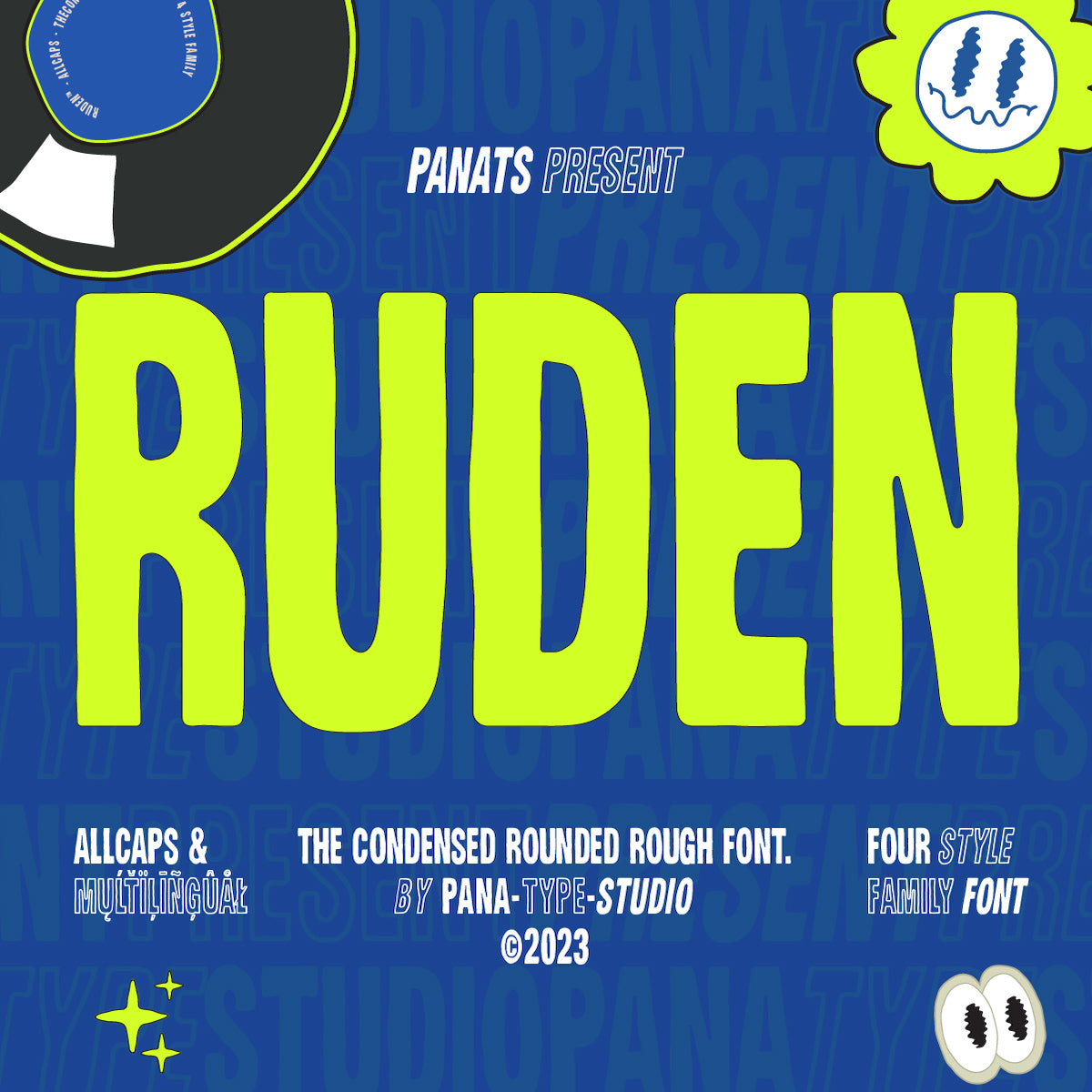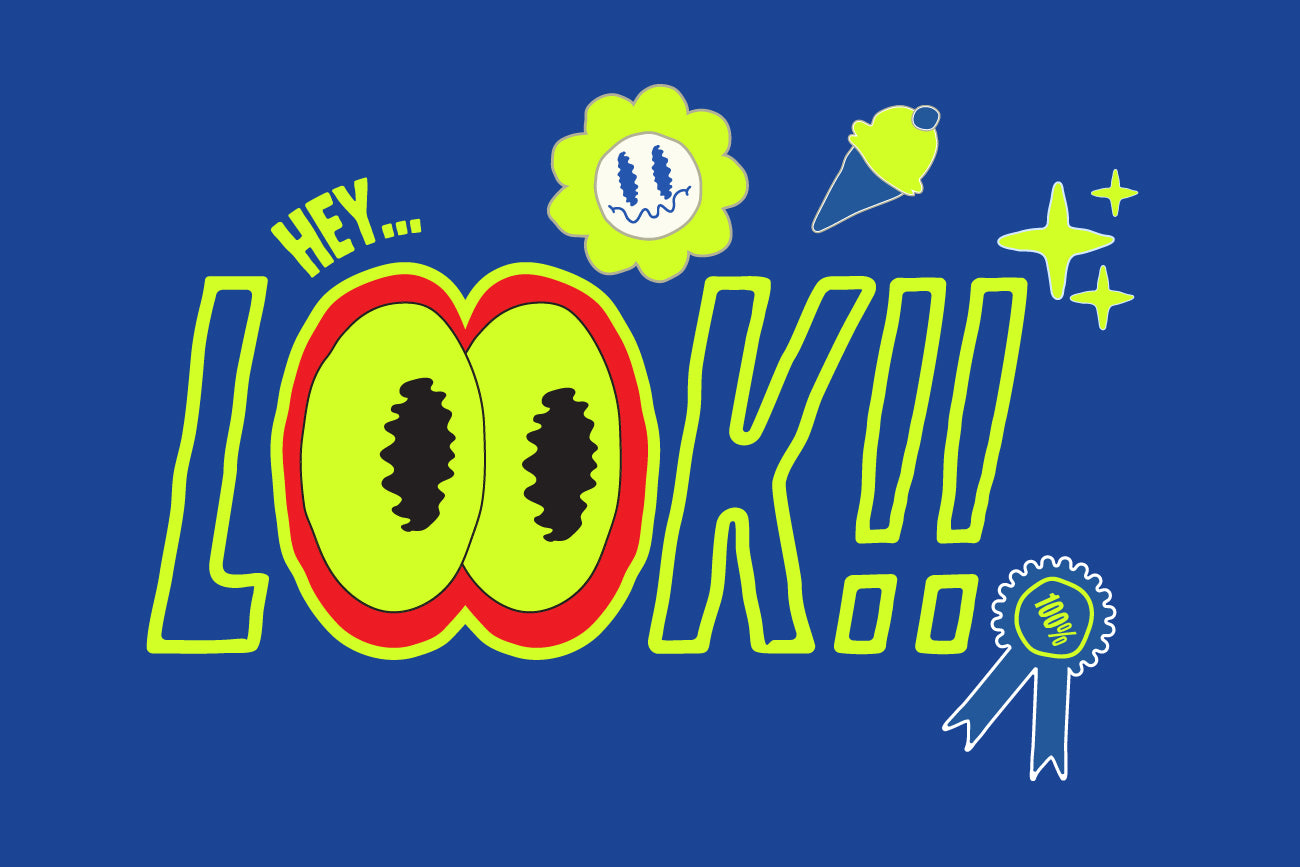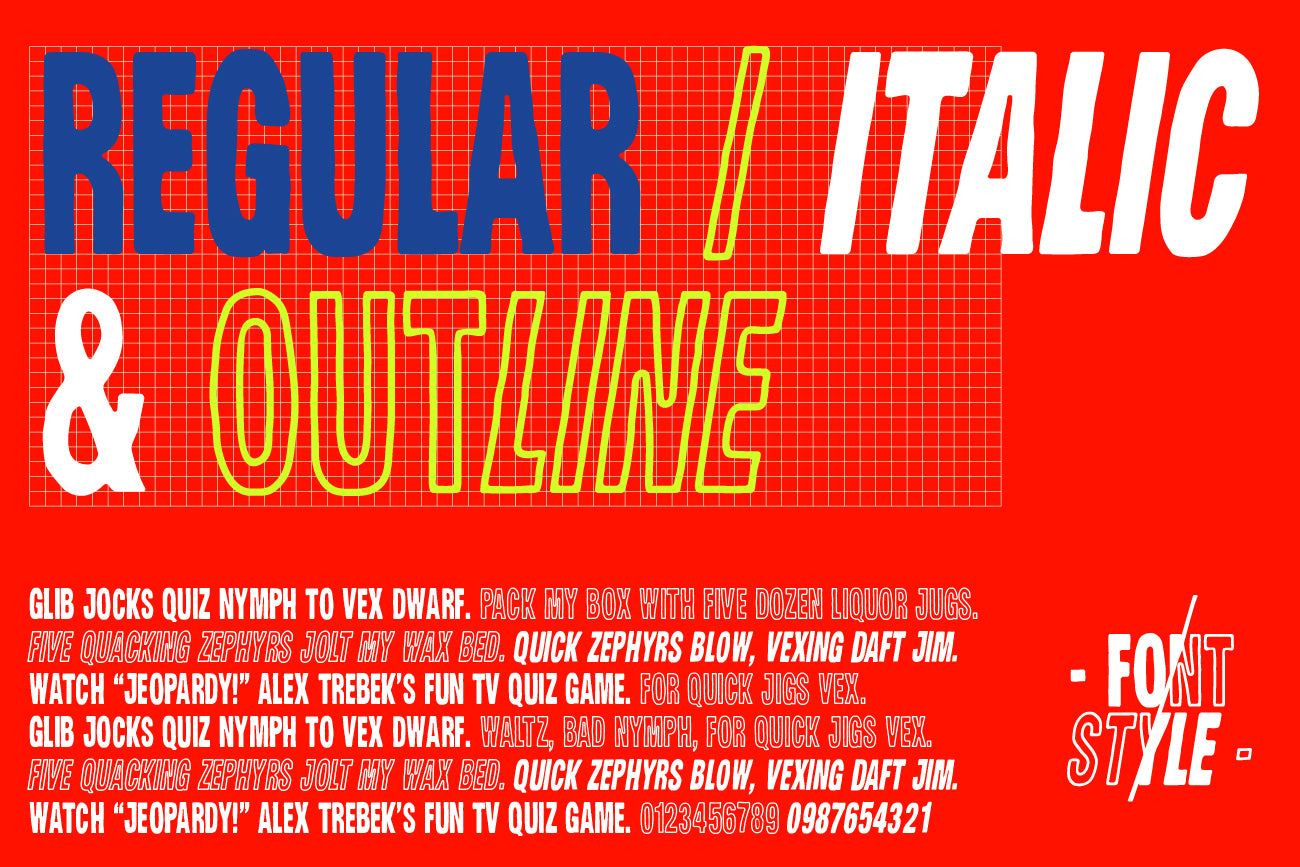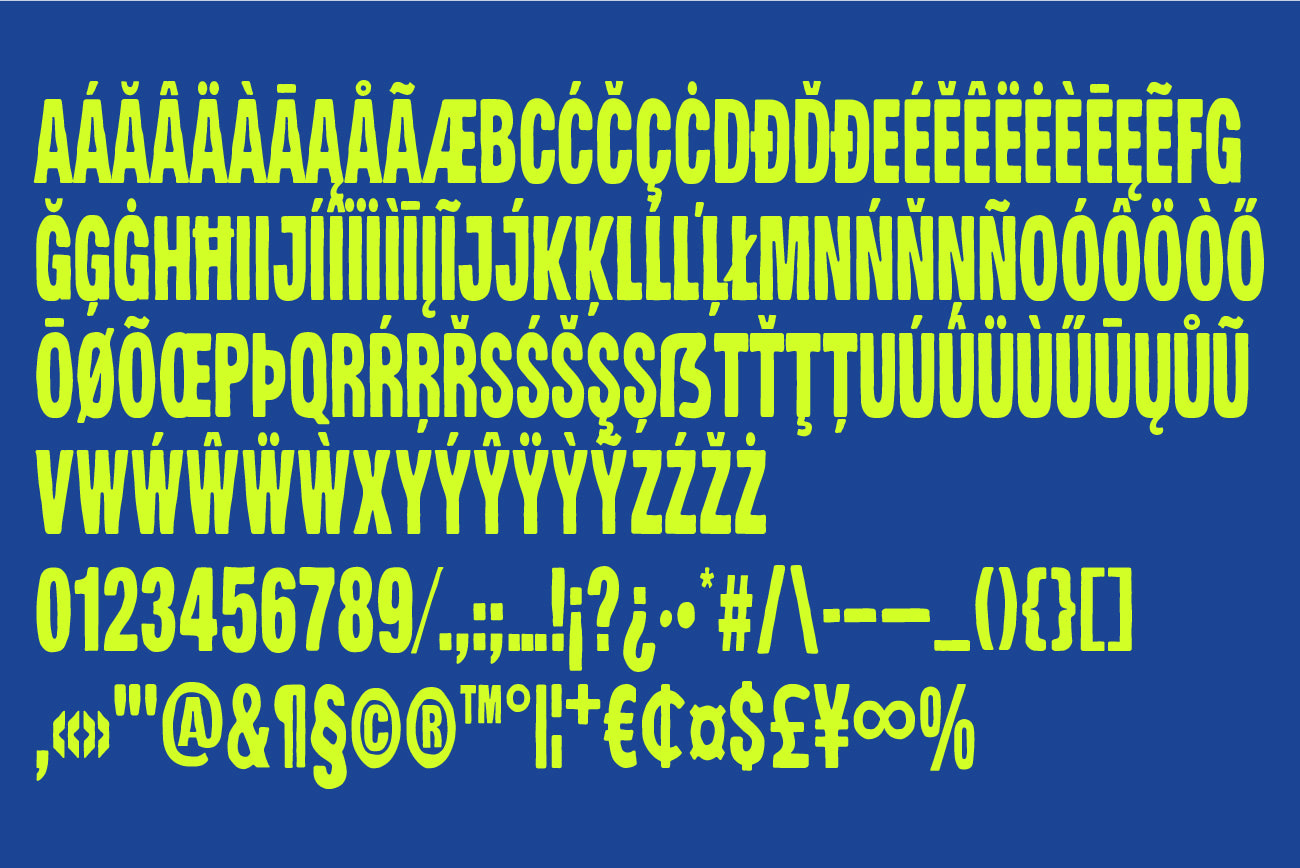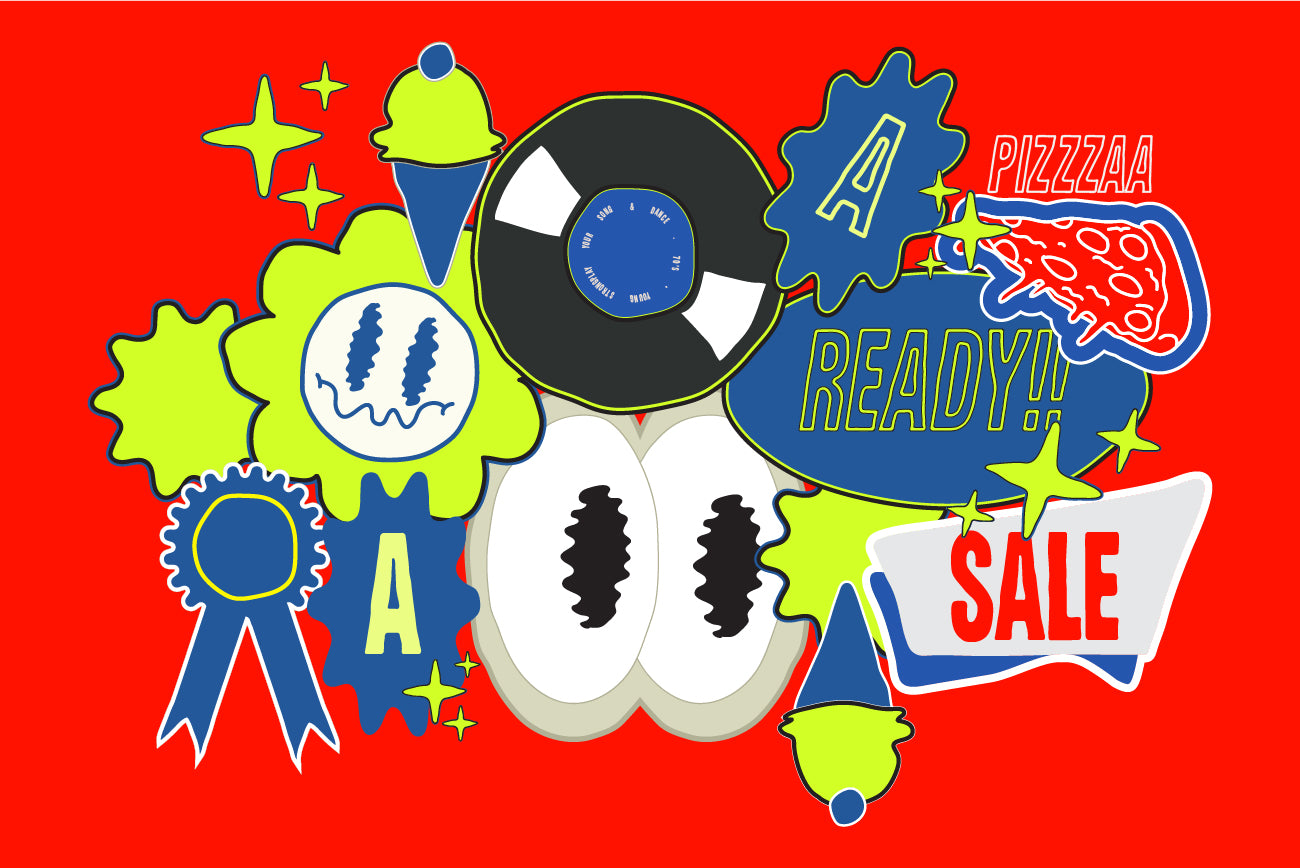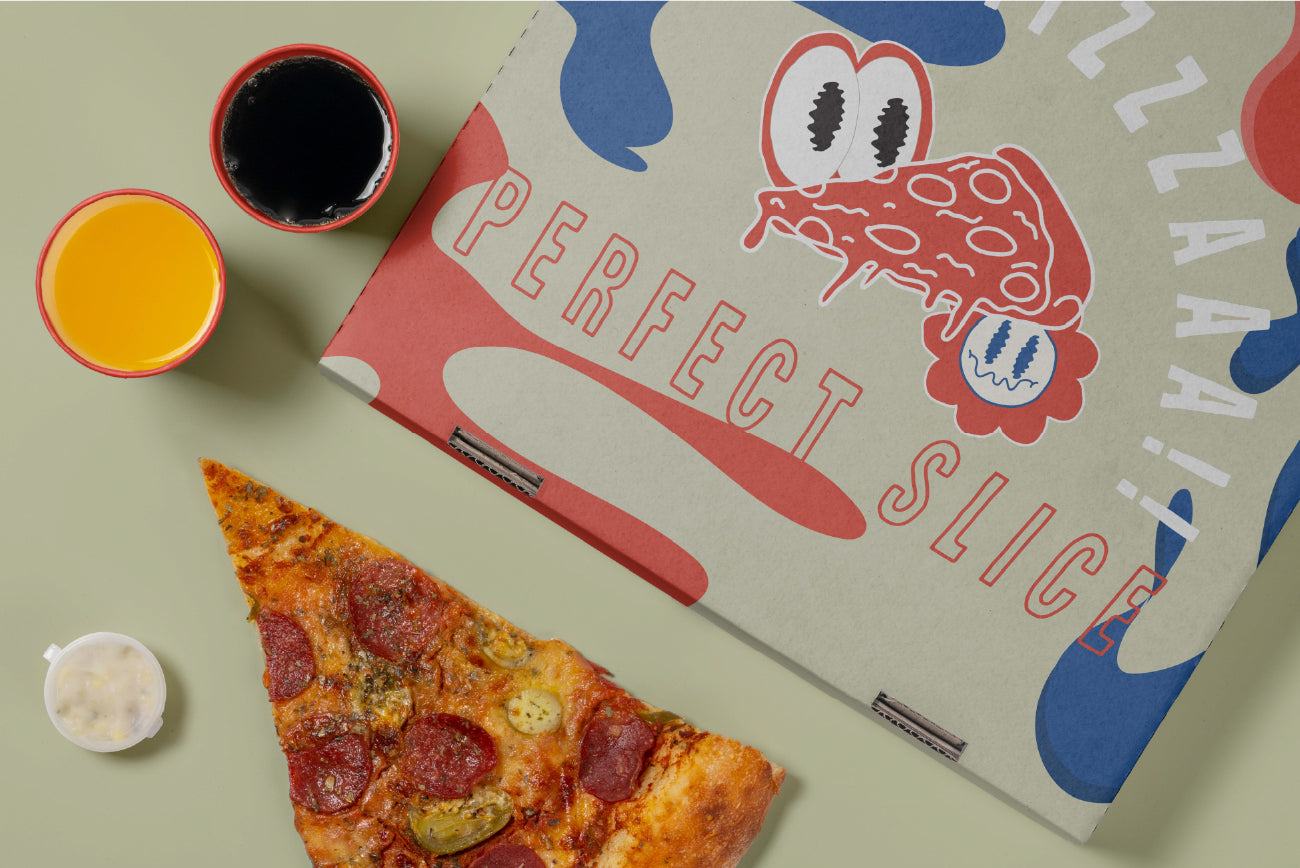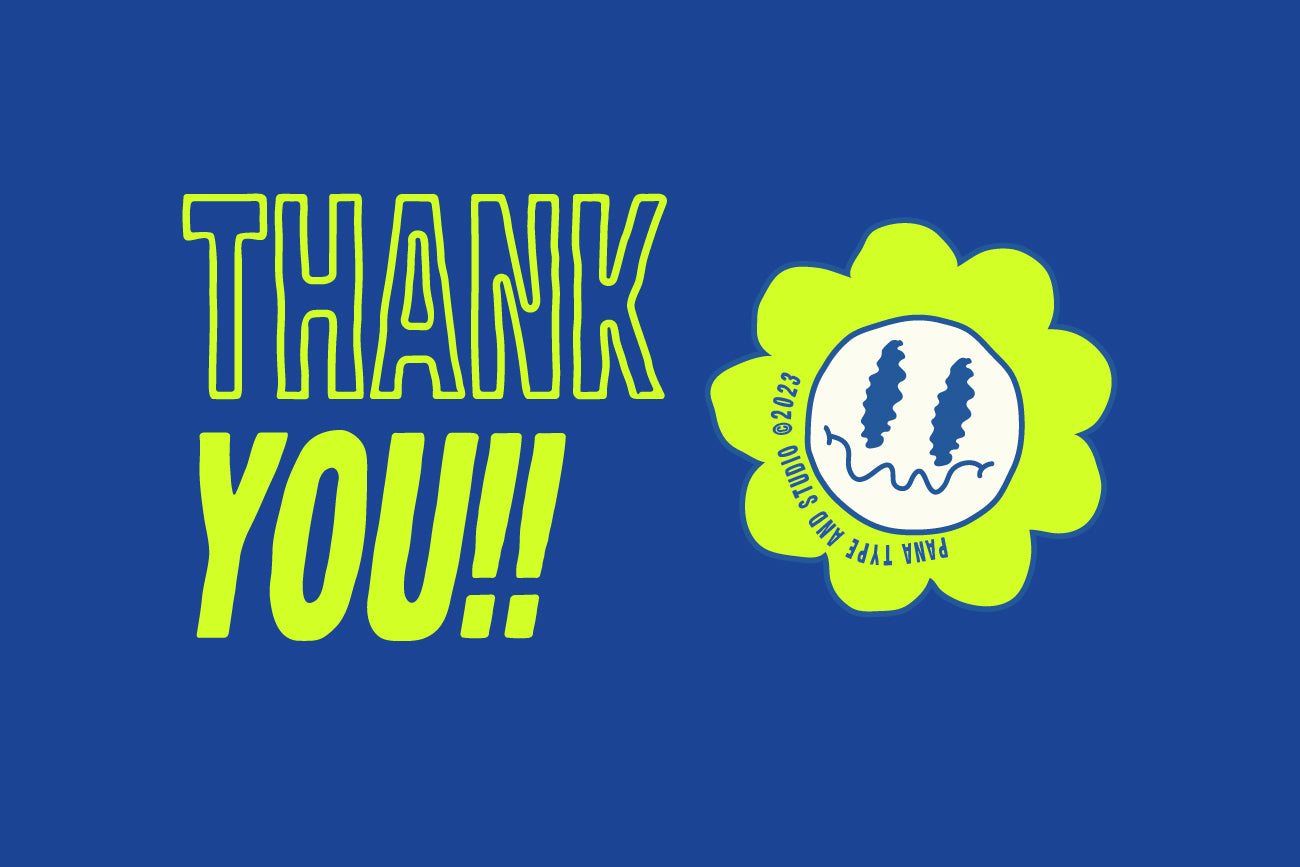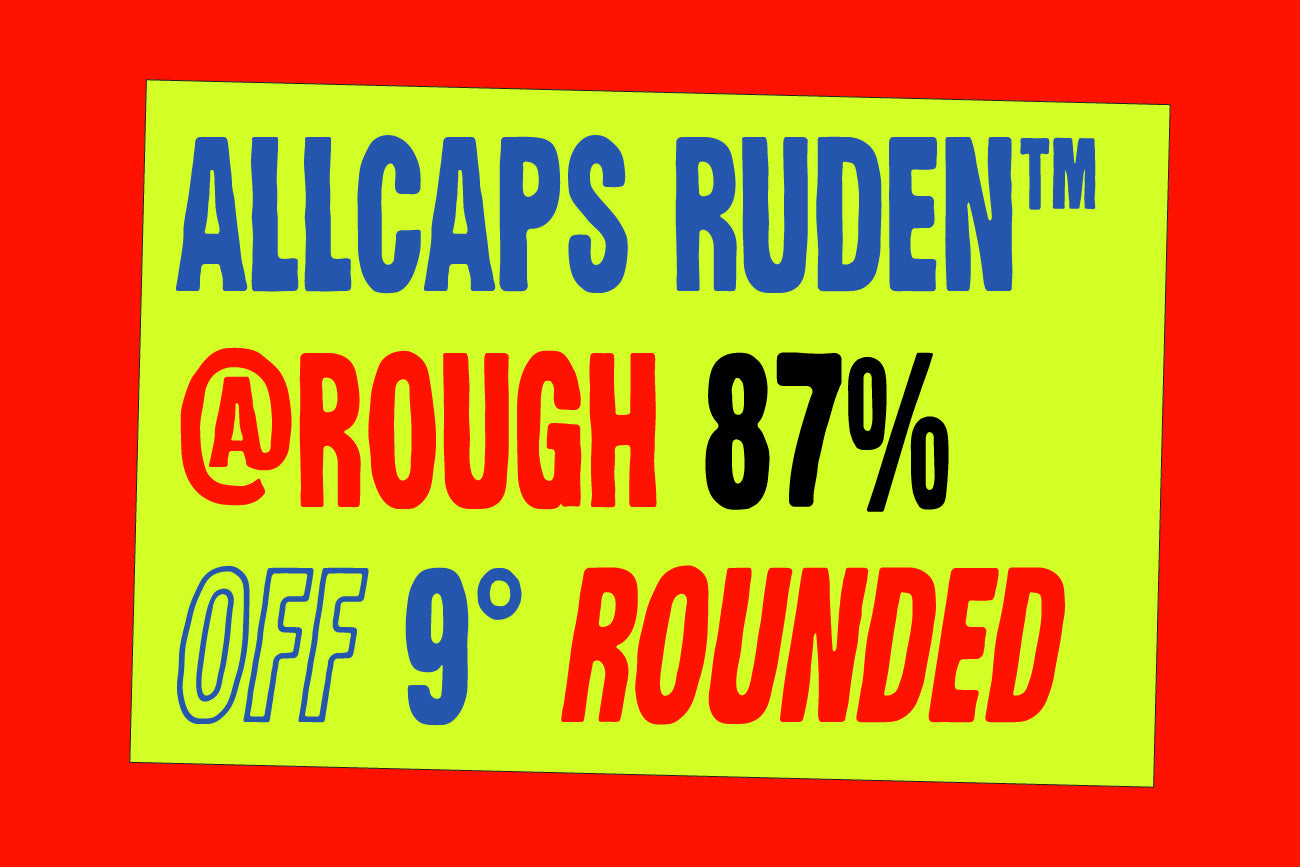
RUDEN Display Font
RUDEN Display Font is a condensed rounded rough typeface featuring an organic hand-written style, available in four family styles: Regular, Italic, Outline, and Outline Italic. It is designed for various graphic design applications, offering a modern vintage and elegant aesthetic.